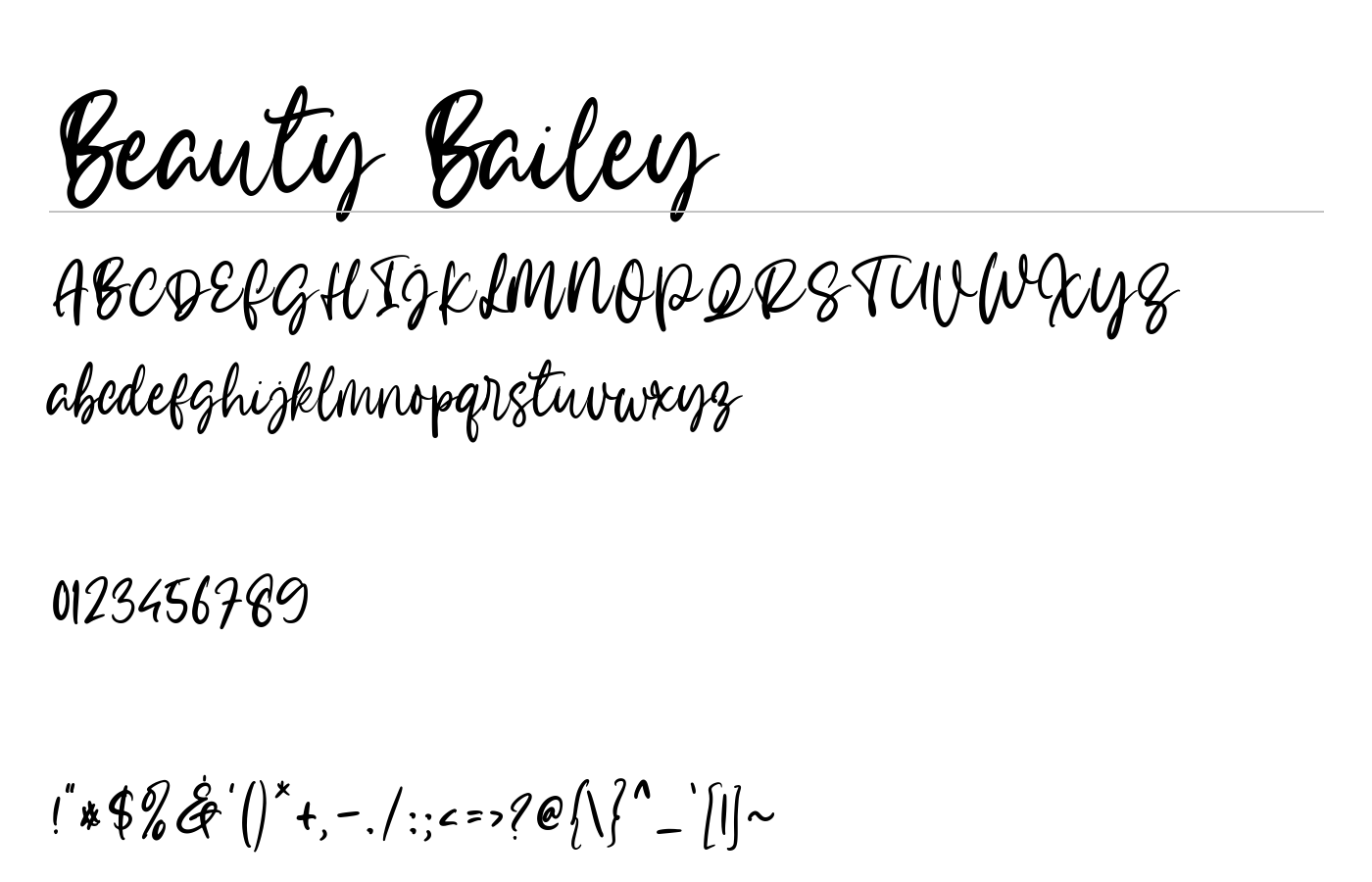
Beauty Bailey is a playful and elegant handwritten script font that features smooth, flowing lines with a lively, personal touch. Its light to medium weight and moderate contrast create a stylish yet approachable feel, making it ideal for invitations, branding, and creative projects that seek a friendly and modern handwritten charm. This font works best in display uses like logos, social media graphics, or packaging where its unique character and readability can shine.
Beauty Bailey Font
About Beauty Bailey Font
| Font family | Beauty Bailey Font |